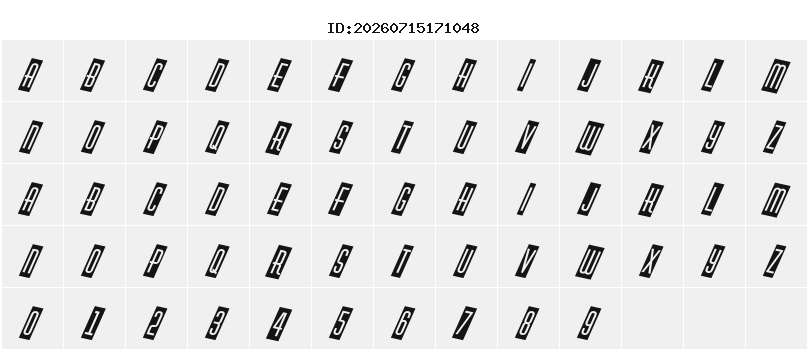
About a_HuxleyCmDino.ttf
a_HuxleyCmDino.ttf is a modern, elegant sans-serif font designed for ultimate readability and visual harmony. Perfect for branding, headlines, web design, and print materials.